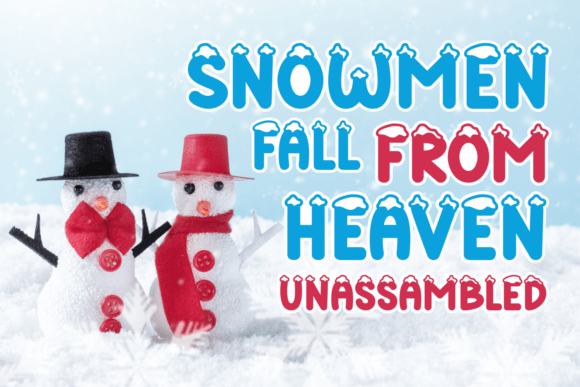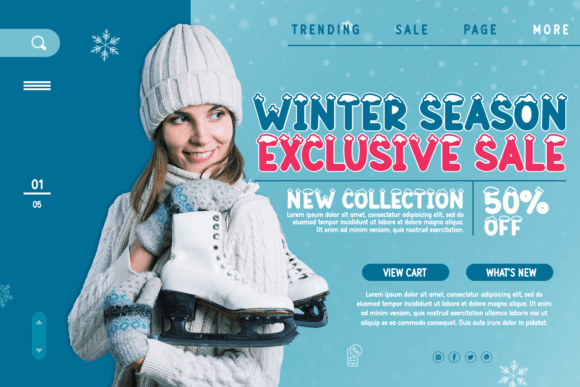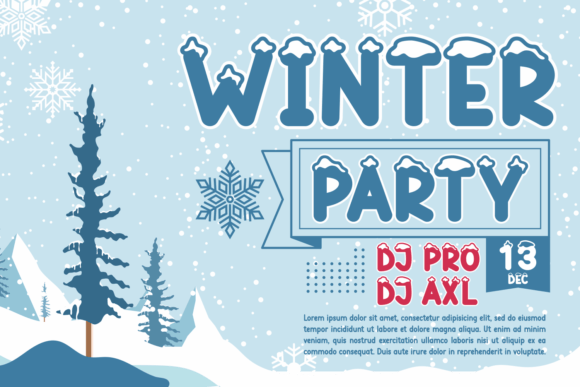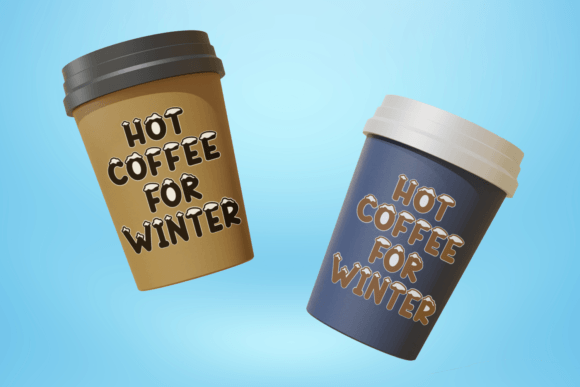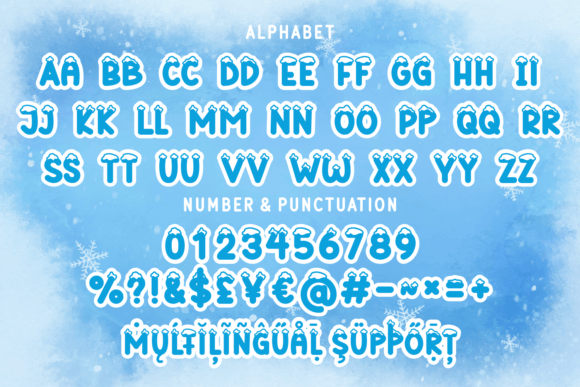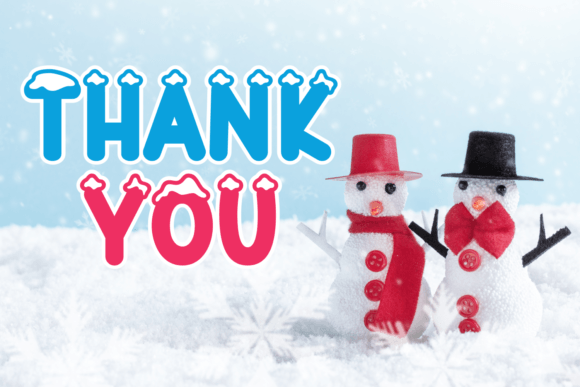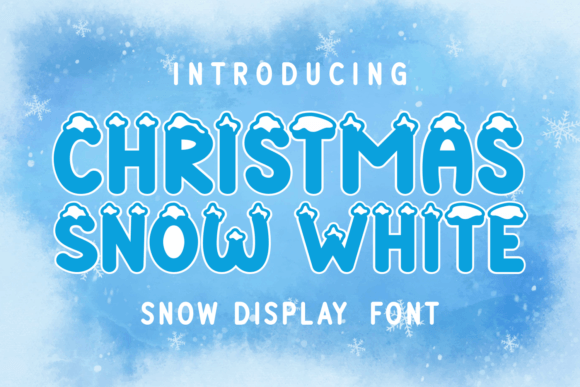
Christmas Snow White Font: Add a Touch of Winter Wonder to Your Designs
As the winter season approaches, designers and crafters are on the lookout for unique and festive typography to add a touch of magic to their projects. If you’re looking for a font that captures the essence of snow and winter fun, look no further than the Christmas Snow White Font. This frosty and fun decorative font features characters topped with fluffy snow, making it the perfect addition to your winter designs.
What is Christmas Snow White Font?
Christmas Snow White Font is a decorative typeface designed to bring a touch of winter wonder to your projects. The font features characters adorned with fluffy snow, giving it a playful and festive feel. The font is perfect for designers and crafters looking to add a unique and eye-catching element to their winter-themed designs.
Key Features of Christmas Snow White Font
- Frosty and Fun Design: The font features a frosty and fun design, making it perfect for winter-themed projects.
- Fluffy Snow-Topped Characters: Each character is topped with fluffy snow, giving the font a playful and festive feel.
- Decorative Typeface: The font is a decorative typeface, making it perfect for adding a touch of elegance and sophistication to your designs.
Uses of Christmas Snow White Font
Christmas Snow White Font can be used in a variety of projects, including:
- Winter-themed Invitations: Use the font to create festive and fun winter-themed invitations for parties, events, and holidays.
- Holiday Cards: Add a touch of winter wonder to your holiday cards with this unique and eye-catching font.
- Social Media Graphics: Use the font to create festive and engaging social media graphics for your winter-themed posts.
- Winter-themed Crafts: Use the font to add a touch of magic to your winter-themed crafts, such as scrapbooking, card making, and more.
Tips for Using Christmas Snow White Font
Here are some tips for using Christmas Snow White Font in your designs:
- Pair with Other Winter Fonts: Pair the font with other winter-themed fonts to create a unique and eye-catching combination.
- Use in Combination with Winter-themed Images: Use the font in combination with winter-themed images, such as snowflakes, snowmen, and pinecones, to create a festive and fun design.
- Experiment with Different Colors: Experiment with different colors, such as blues and whites, to create a winter wonderland effect.
Christmas Snow White Font is a unique and festive typeface that is perfect for adding a touch of winter wonder to your designs. With its frosty and fun design, fluffy snow-topped characters, and easy-to-use format, this font is a must-have for designers and crafters looking to create winter-themed projects. Whether you’re creating invitations, holiday cards, social media graphics, or winter-themed crafts, this font is sure to bring a touch of magic to your designs.